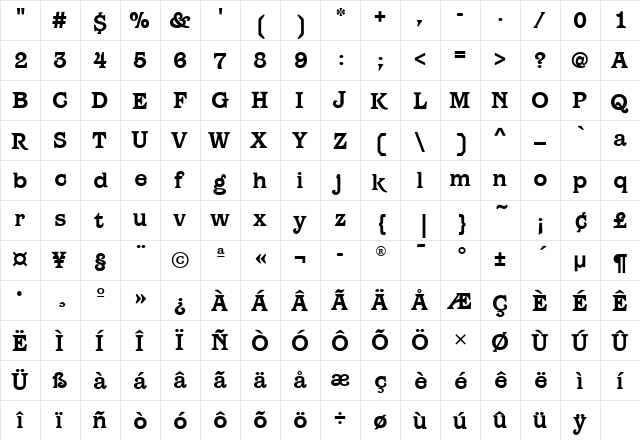
BarcelonaITC Bold
Design Context for BarcelonaITC Typeface
BarcelonaITC is a composed and adaptable typeface that performs quietly and consistently across a wide range of design contexts. The heavy weight commands attention and anchors typographic hierarchies.